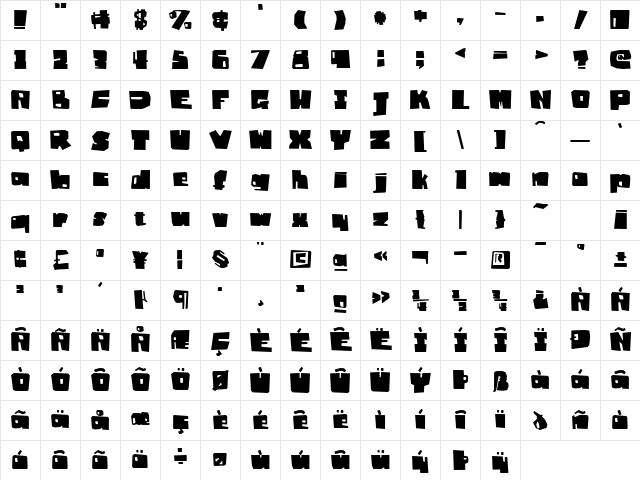
Complete Badger Fatboy Regular glyph index. Displaying only characters natively supported by Badger Fatboy Regular font.
Badger Fatboy Regular is a composed and adaptable typeface that performs quietly and consistently across a wide range of design contexts.
Pro Tip: Use Badger Fatboy Regular in both headline and body roles to test its range before committing to a single application.